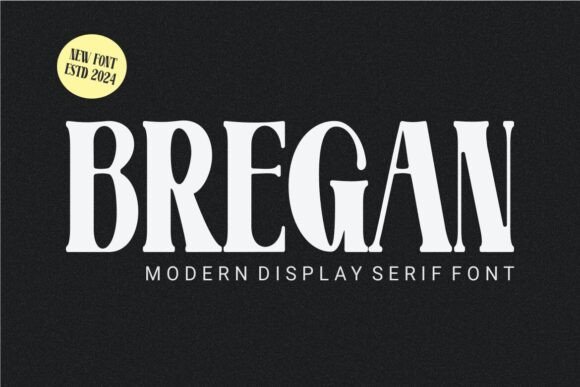
Bregan Font: Elevate Your Design with Elegance and Boldness
In the world of typography, fonts play a crucial role in conveying the tone and aesthetic of a design. Among the numerous fonts available, Bregan font stands out for its elegant and bold serif style, making it a versatile choice for various design projects. In this article, we’ll explore the features and benefits of Bregan font, and how it can be used to create stunning designs, from wedding invitations to social media posts.
What is Bregan Font?
Bregan font is a serif typeface characterized by its elegant and bold appearance. The font’s design is inspired by traditional serif fonts, but with a modern twist that sets it apart from more conventional fonts. Its unique blend of classic and contemporary elements makes Bregan font an excellent choice for designers looking to add a touch of sophistication to their work.
Key Features of Bregan Font
Bregan font boasts several key features that make it an attractive option for designers:
- Elegant and Bold Design: Bregan font’s serif style exudes elegance and sophistication, making it perfect for designs that require a touch of luxury.
- Versatility: The font’s versatility allows it to be used in various design projects, from wedding invitations to social media posts.
- High Readability: Bregan font’s clear and concise design ensures high readability, even at smaller font sizes.
- Unique Character Set: The font includes a range of characters, including uppercase and lowercase letters, numbers, and punctuation marks.
Using Bregan Font for Wedding Invitations
Wedding invitations are a perfect opportunity to showcase Bregan font’s elegance and sophistication. The font’s bold serif style adds a touch of luxury to any wedding invitation, making it an ideal choice for couples looking to make a statement. Here are some ways to use Bregan font for wedding invitations:
- Formal Wedding Invitations: Bregan font’s elegant design makes it perfect for formal wedding invitations, especially those with a vintage or classic theme.
- Wedding Stationery: Use Bregan font to create beautiful wedding stationery, including save-the-date cards, RSVP cards, and thank-you notes.
- Wedding Website: Bregan font can also be used on wedding websites to create a cohesive and elegant online presence.
Creating Beautiful Stationary Art with Bregan Font
Bregan font’s versatility extends beyond wedding invitations, making it an excellent choice for creating beautiful stationary art. Here are some ways to use Bregan font for stationary art:
- Letterheads: Use Bregan font to create elegant letterheads for personal or business correspondence.
- Note Cards: Bregan font is perfect for creating beautiful note cards for special occasions, such as birthdays, anniversaries, or get-well wishes.
- Journal Covers: Add a touch of elegance to journal covers with Bregan font’s bold serif style.
Eye-Catching Social Media Posts with Bregan Font
In today’s digital age, social media posts play a crucial role in capturing attention and conveying messages. Bregan font can be used to create eye-catching social media posts that stand out from the crowd. Here are some ways to use Bregan font for social media:
- Quotes and Sayings: Use Bregan font to create visually appealing quotes and sayings that inspire and motivate.
- Product Announcements: Bregan font’s bold design makes it perfect for product announcements, adding a touch of luxury and sophistication.
- Event Promotions: Create eye-catching event promotions with Bregan font, including concerts, conferences, or workshops.
Bregan font is an elegant and bold serif font that offers a versatile style for various design projects. Its unique blend of classic and contemporary elements makes it an excellent choice for designers looking to add a touch of sophistication to their work. Whether you’re creating wedding invitations, stationary art, or social media posts, Bregan font is sure to elevate your design and make it stand out.